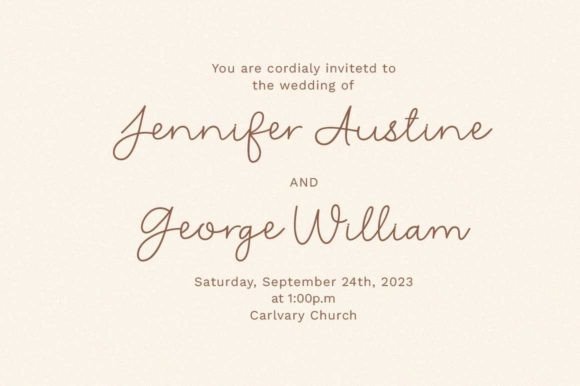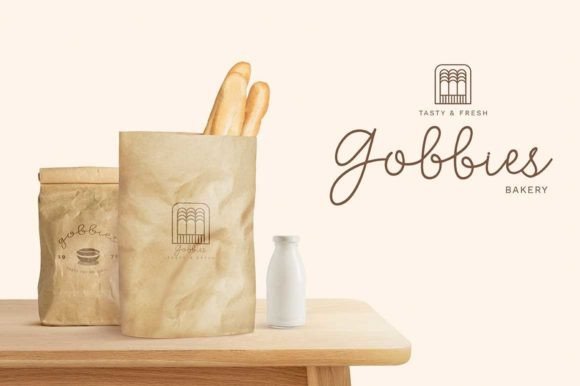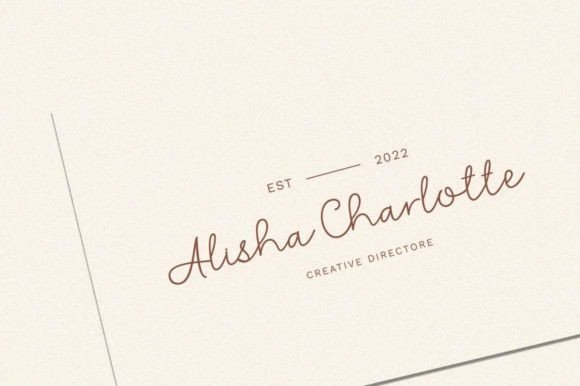
Introduction to James Harden Font
James Harden is a lovely and timeless handwritten font.
It is the best choice for creating eye-catching logos, branding, and quotes Every letter has a unique and beautiful touch, which will make your design come alive.
James Harden Font offers exceptional quality and versatility, making it a valuable addition to your design toolkit. Whether you’re creating for personal projects or commercial use, James Harden Font delivers professional results.